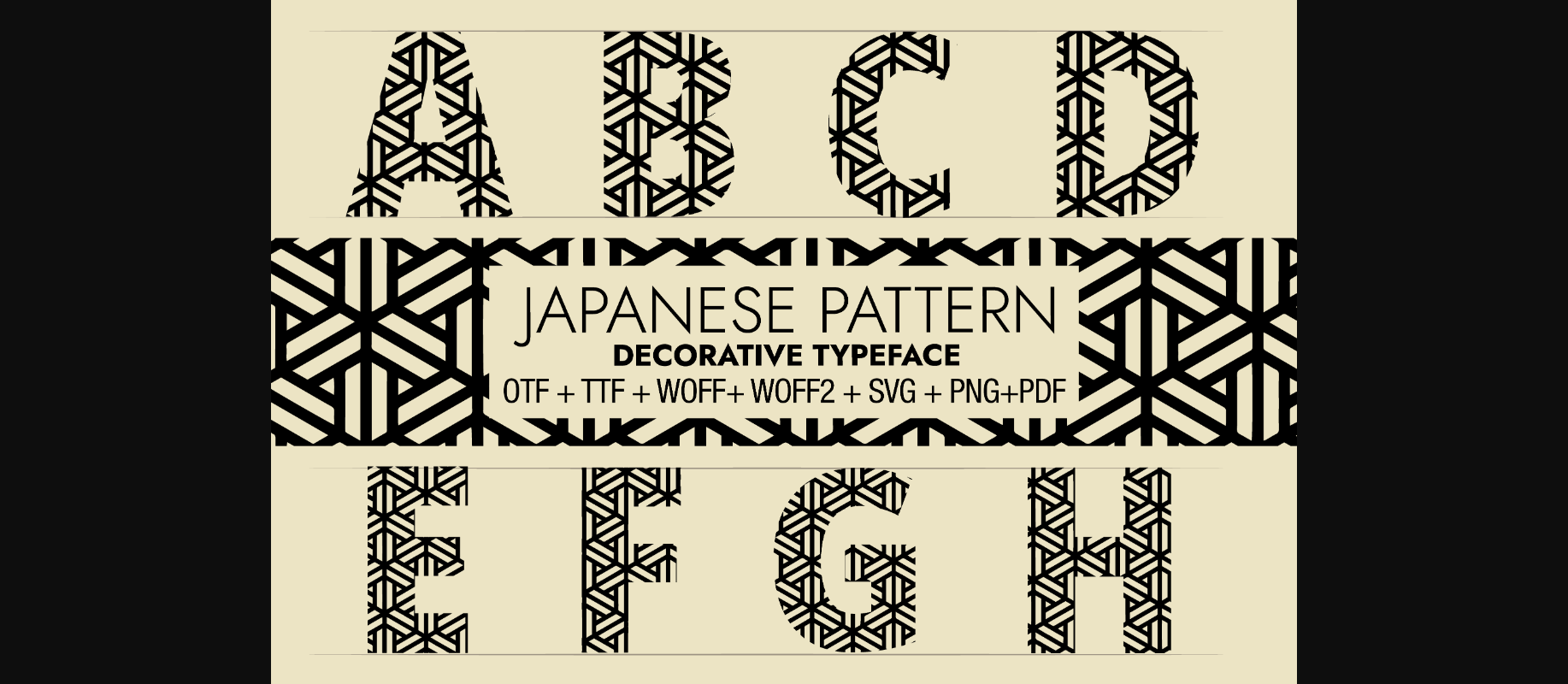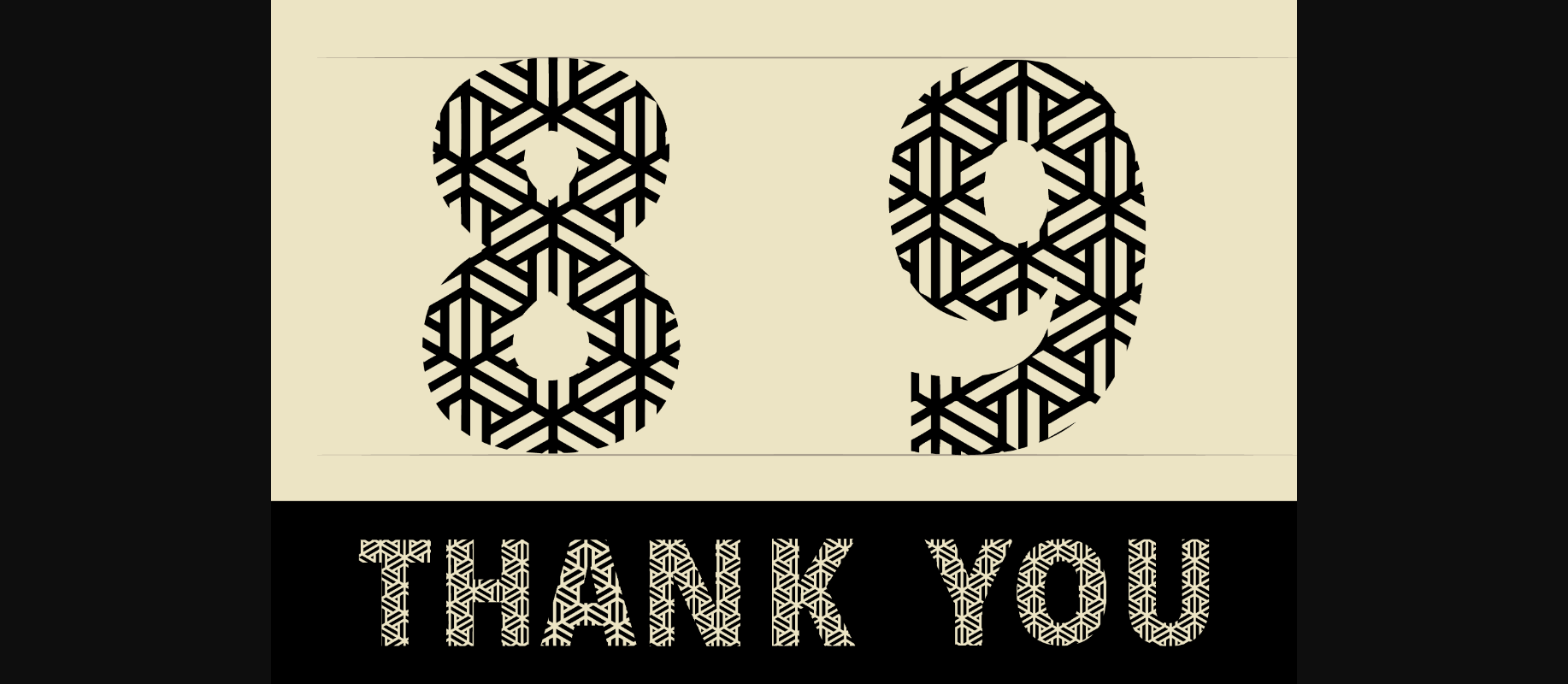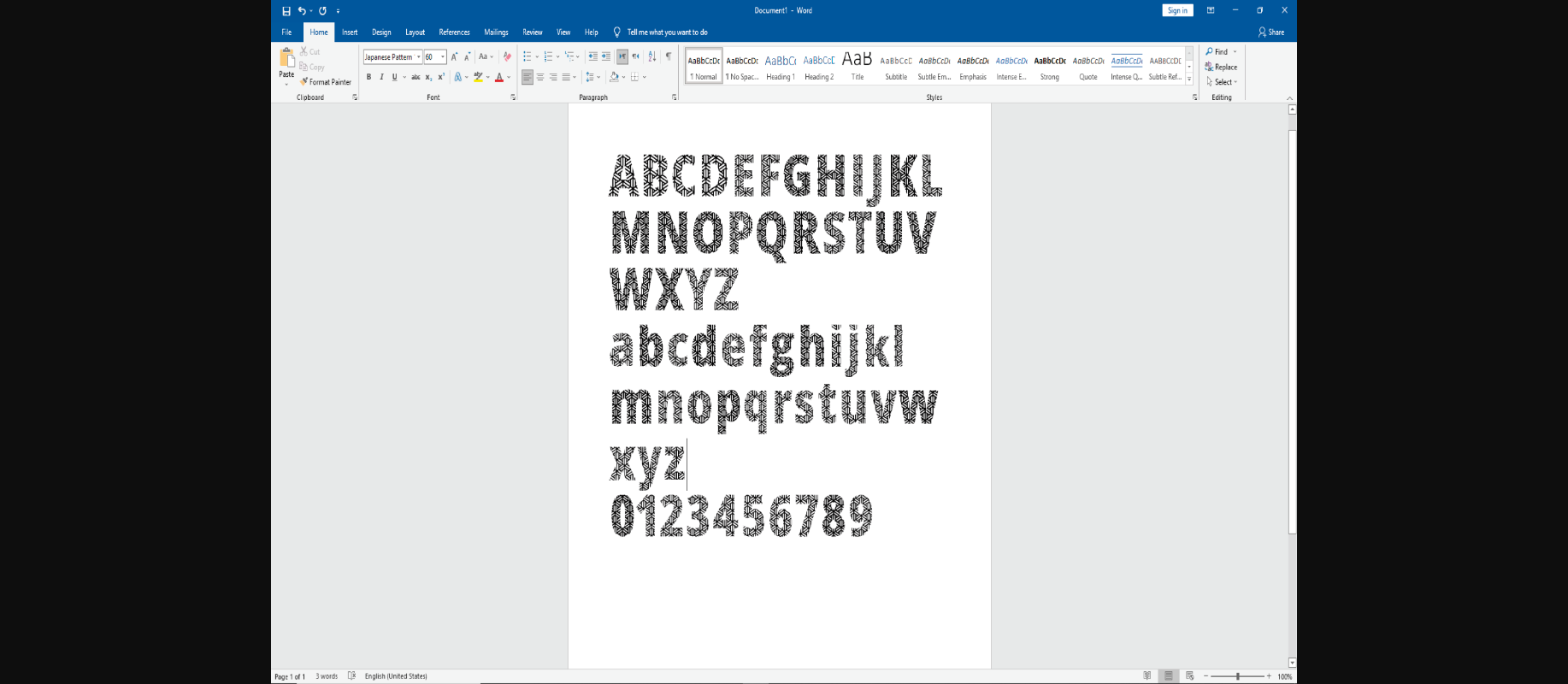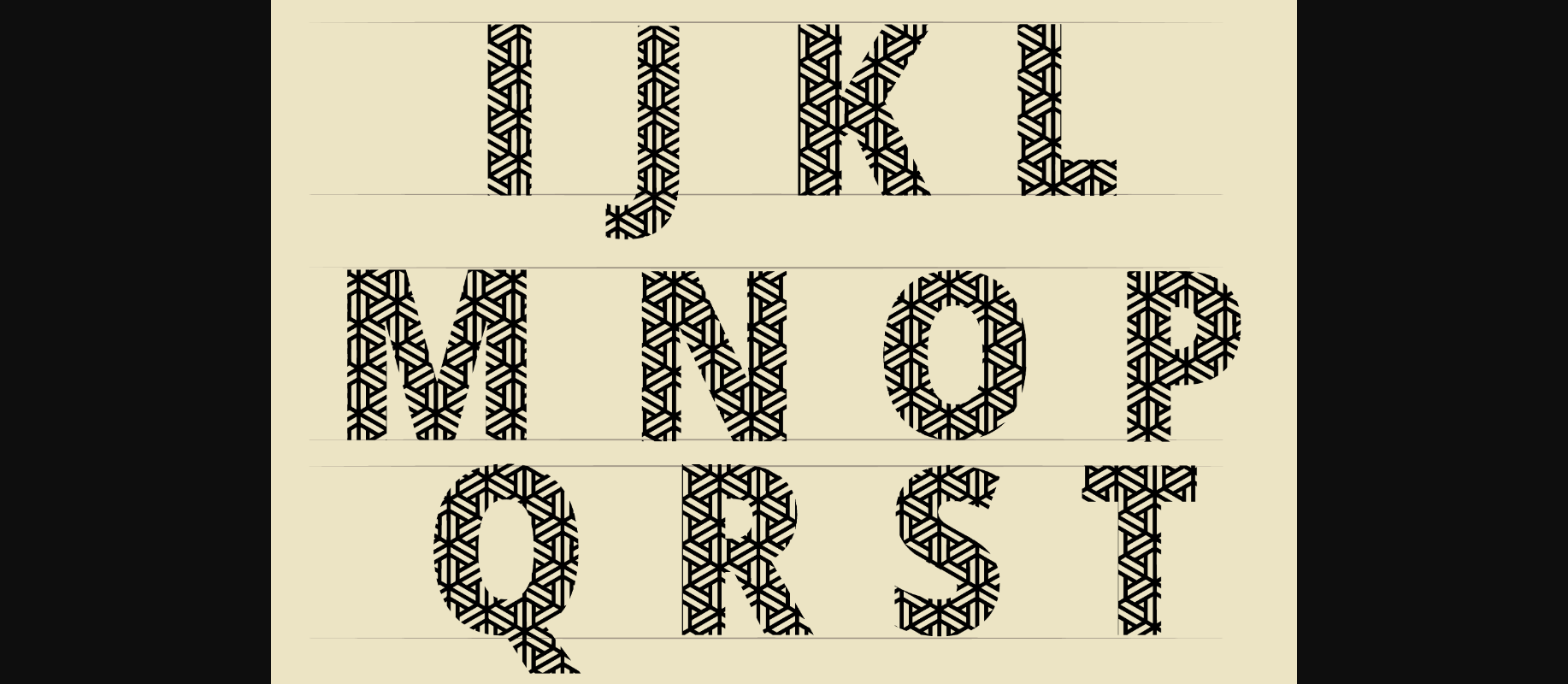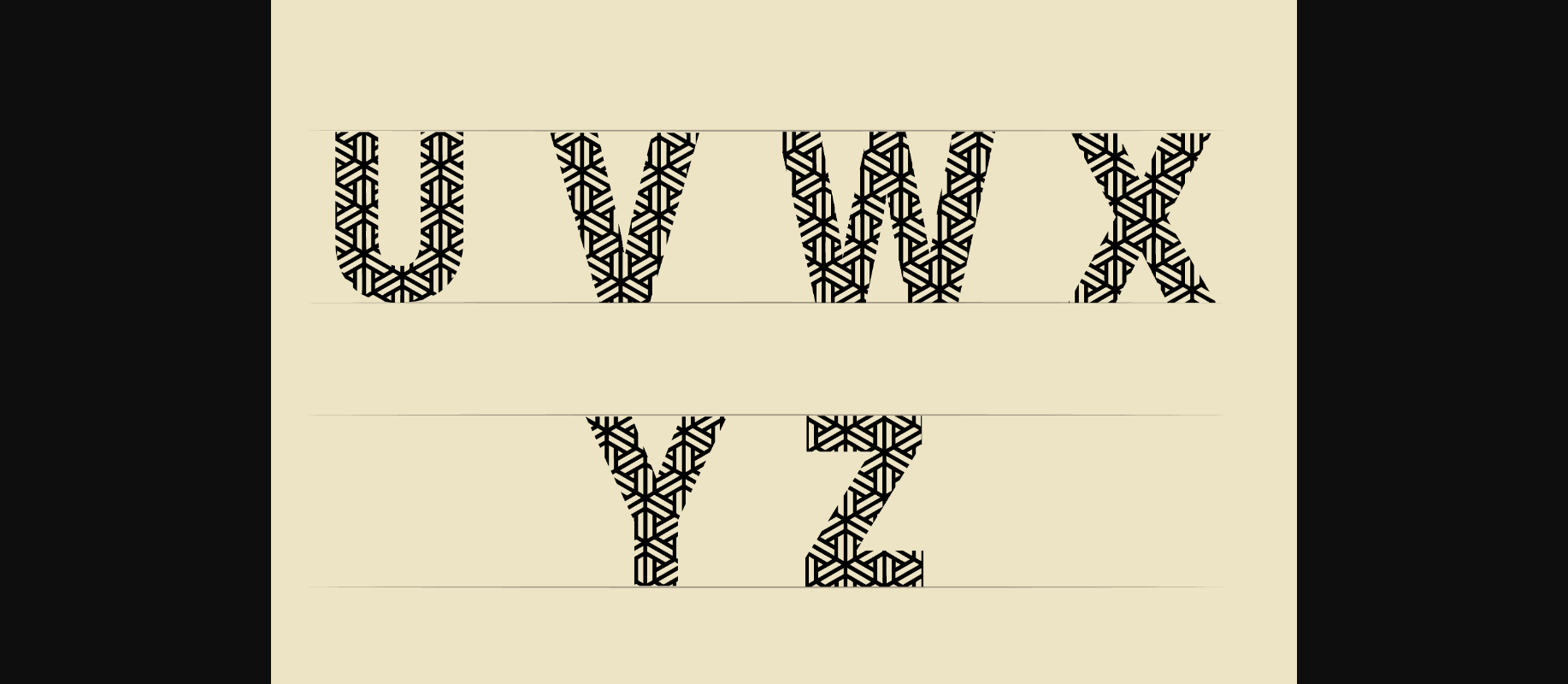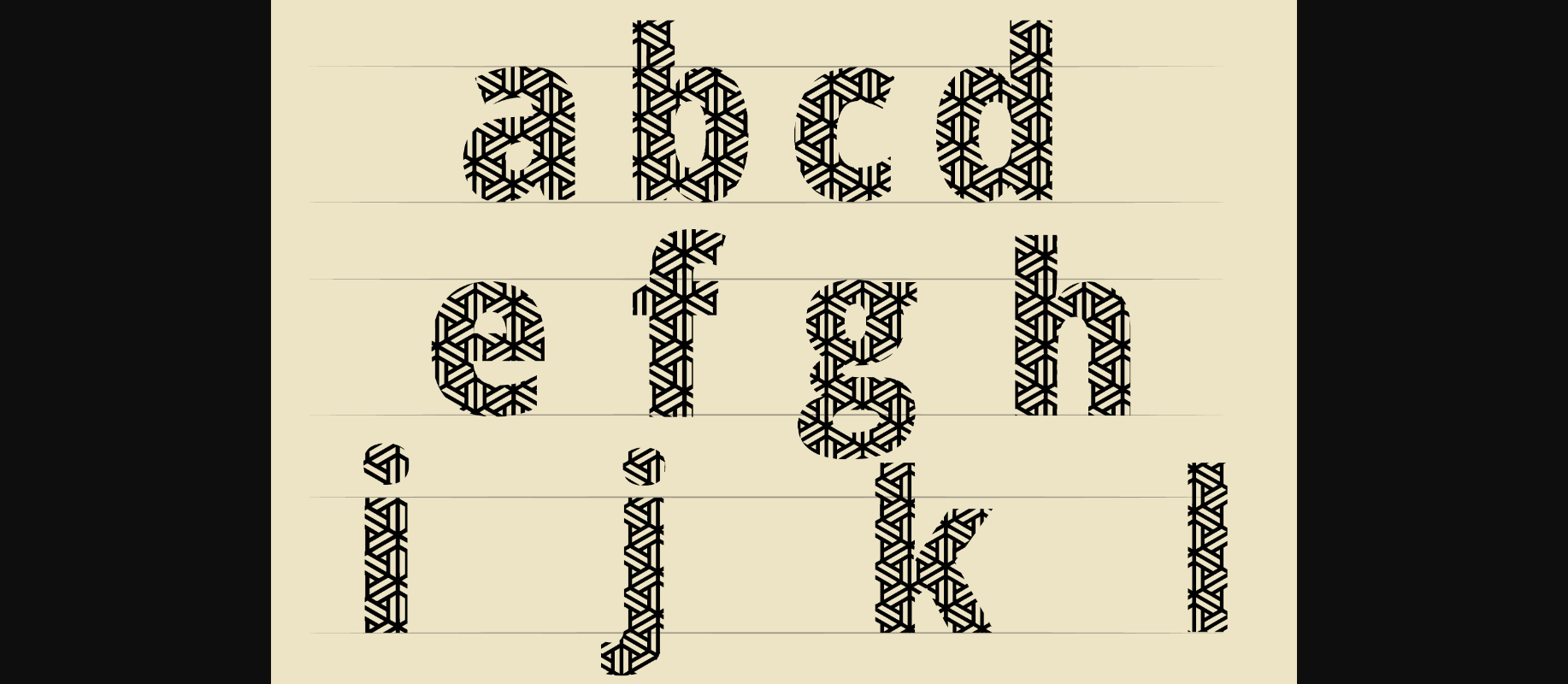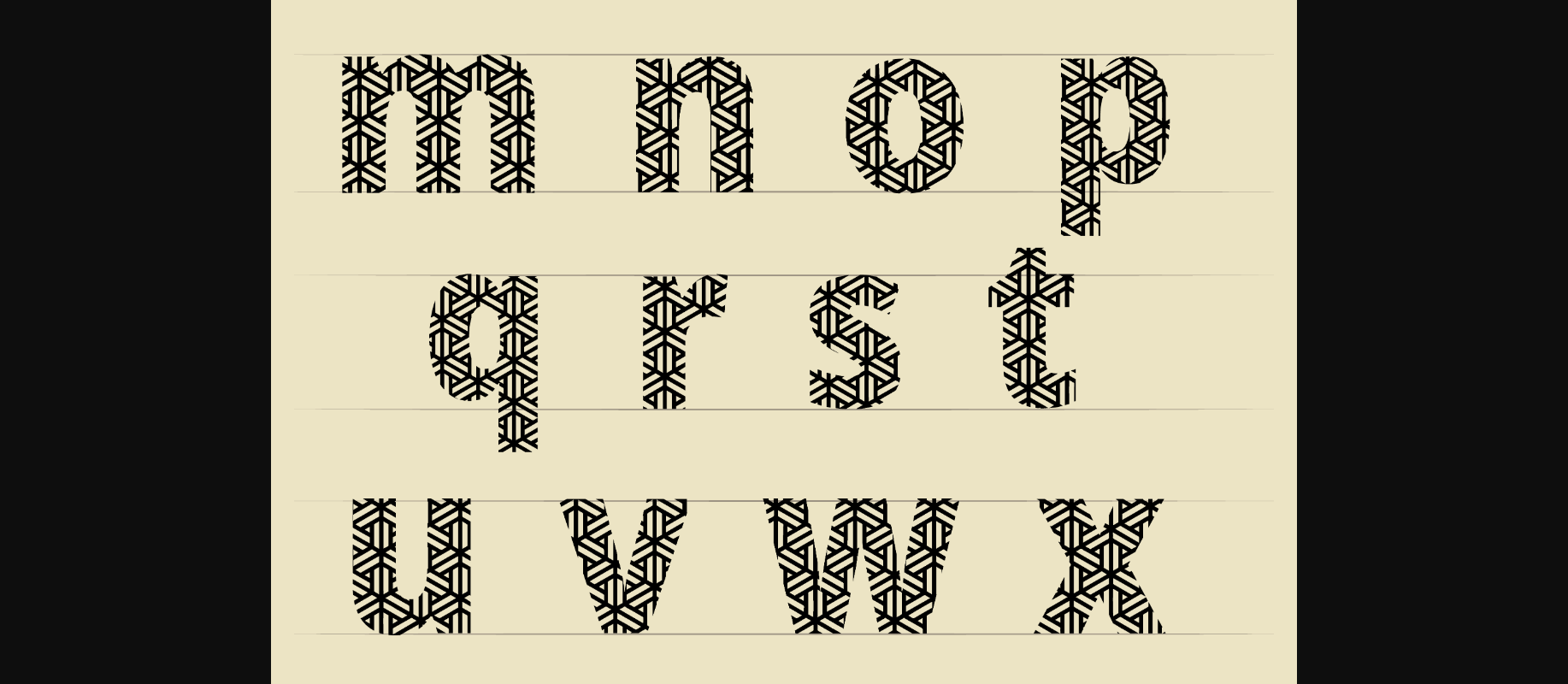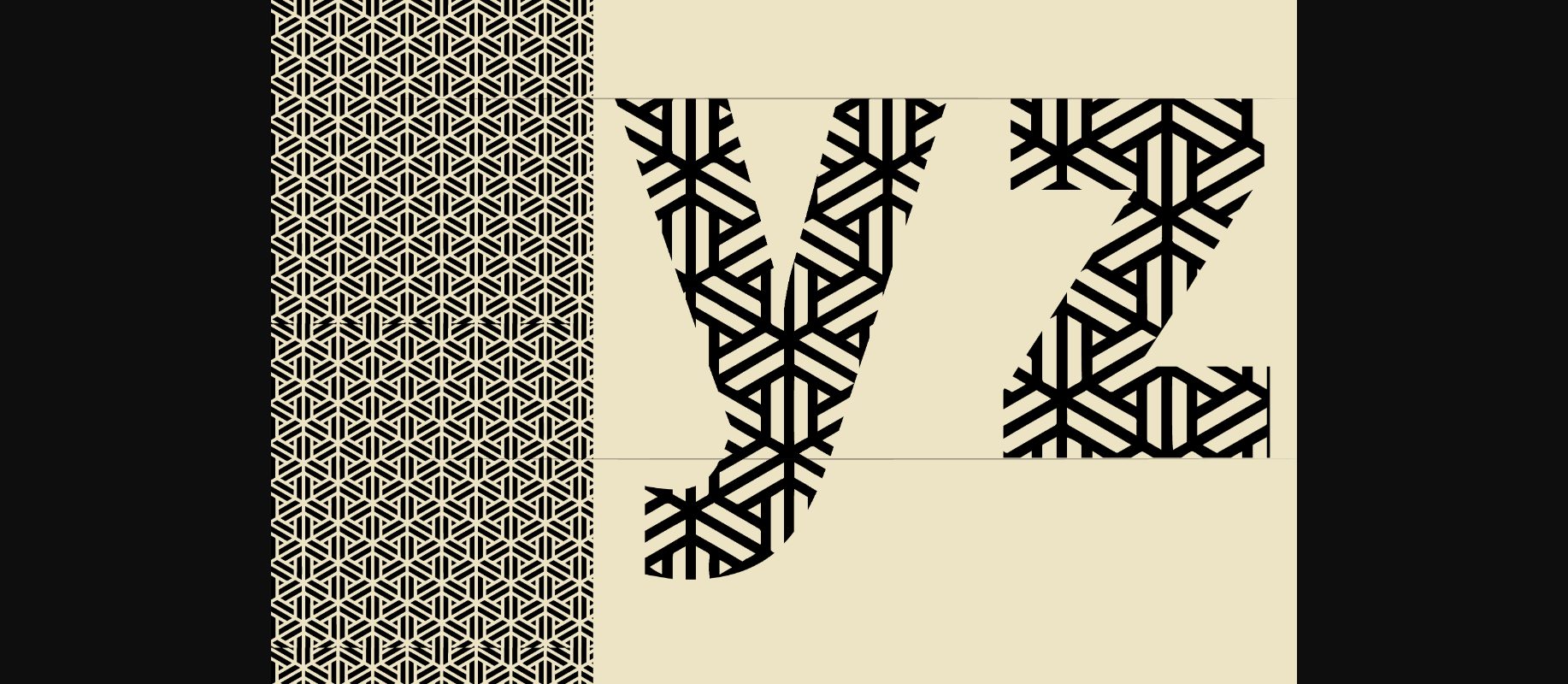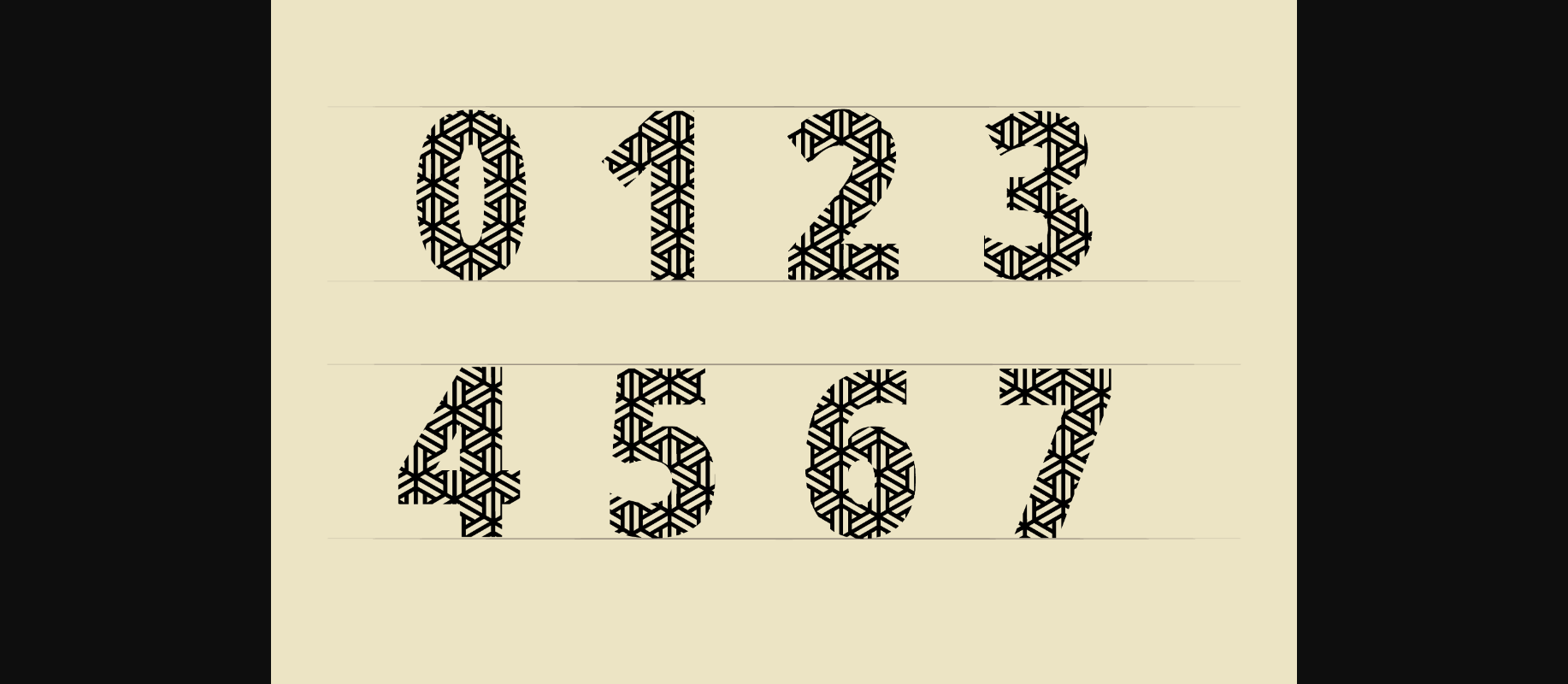
Japanese Pattern Font
About Japanese Pattern Font
Japanese Pattern is a highly detailed decorative font. Whether you’re using it for crafts, digital design, presentations, or making greeting cards, this font has the potential to become your favorite go-to font, no matter the occasion!